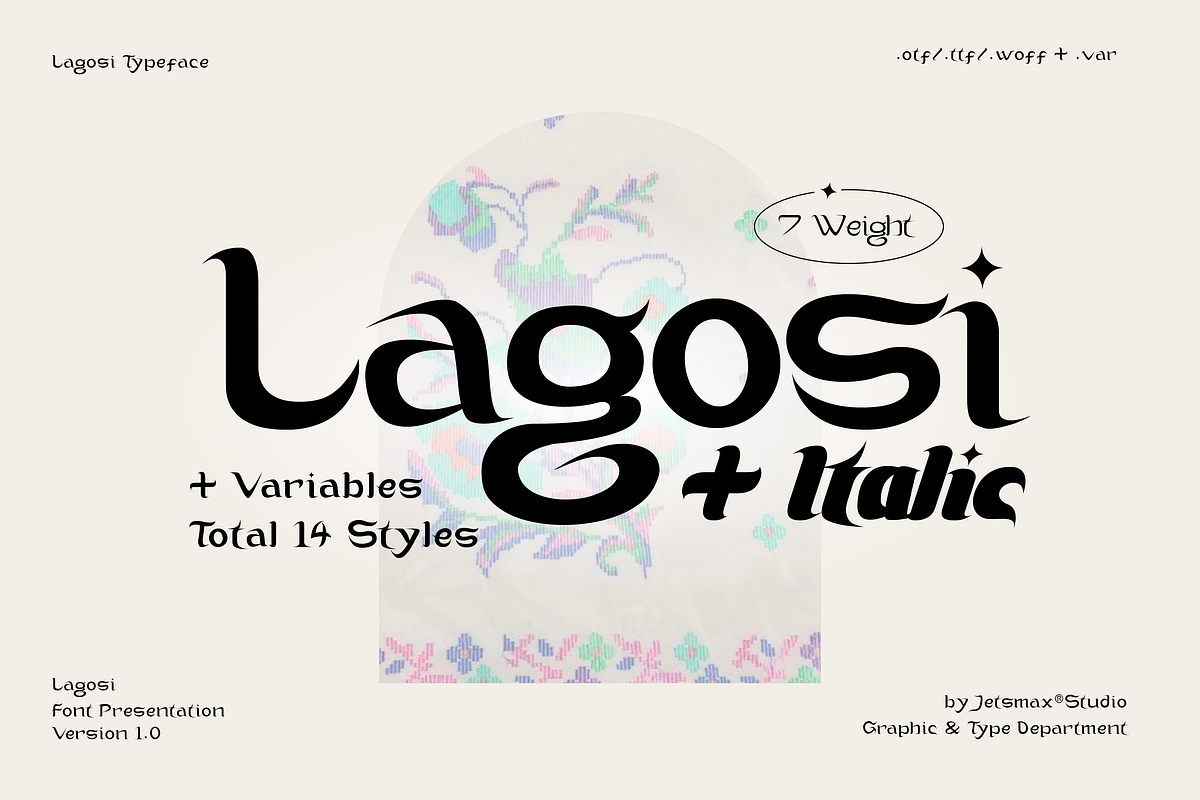
Lagosi Typeface Font is a sleek and modern font that adds a bold, stylish touch to any design. Perfect for headlines, branding, or creative projects, Lagosi Typeface Font is versatile and visually appealing. You can test it for free by downloading Lagosi Typeface Font Free Download right now!